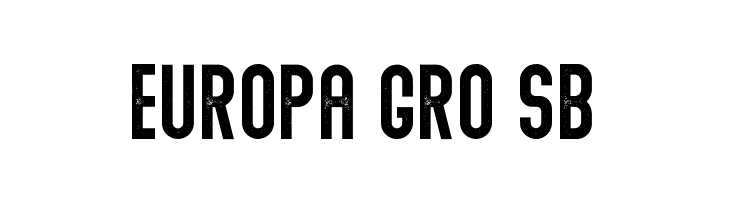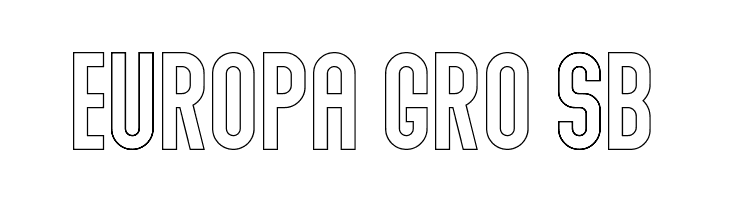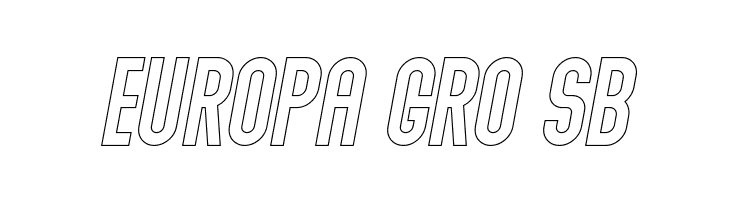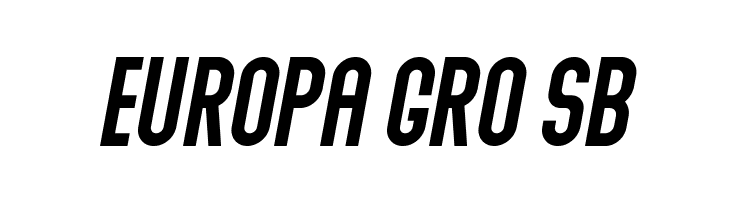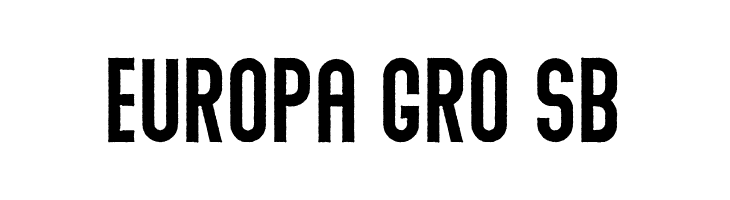
A bold, condensed font with a modern and impactful style.
A bold, italicized font with a condensed and dynamic style.
A modern, italic outline font with uniform stroke width.
A modern, bold outline font with geometric letterforms and consistent width.
A bold, rough-textured font with a vintage, industrial style.
A bold, distressed font with a vintage, industrial stamp-like appearance.